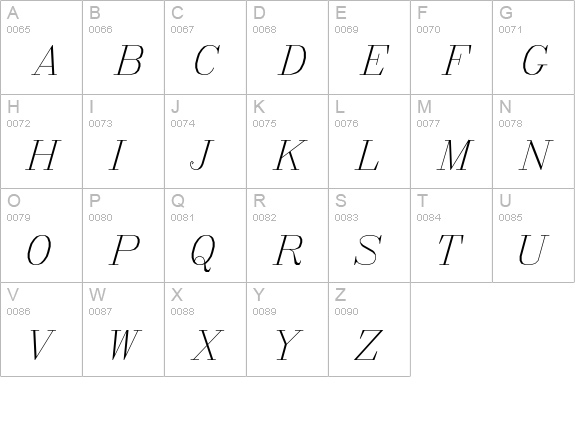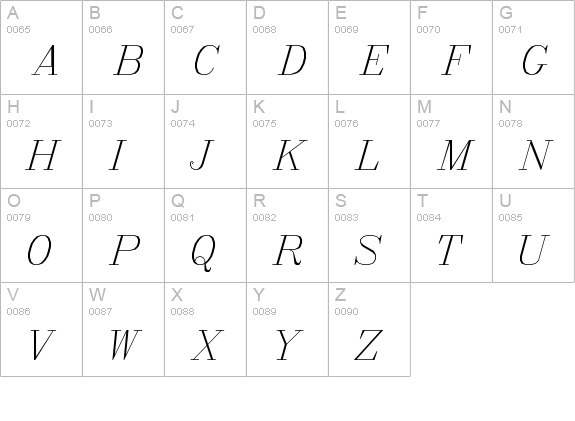
Italic is a distinctive, italic variant in the Italic typeface family \xE2\x80\x94 well suited to design and typography projects.
The Italic font is a delightful and versatile typeface that adds a touch of elegance and sophistication to any project. Its slanted and stylish letterforms exude a sense of movement and fluidity, making it perfect for adding emphasis or creating a visually striking design. With its sleek and modern look, the Italic font is a favorite among designers and typographers alike. Its distinctive slant and graceful curves lend a sense of drama and flair to any text, making it an excellent choice for headlines, titles, and logos. Whether you're designing a magazine layout, creating a captivating poster, or crafting an eye-catching website, the Italic font is sure to make a bold statement. One of the best things about the Italic font is that it is freely available to download at FontsMarket.com. This means that you can easily access and use this beautiful typeface in your projects without any cost. Whether you're a professional designer or a hobbyist, having access to high-quality fonts like the Italic font can significantly enhance your creative work. The Italic font is not only visually appealing but also highly legible, making it ideal for both print and digital applications. Its clear and crisp letterforms ensure that your message is communicated effectively, whether it's in a book, a website, or a branding project. Its versatility allows it to be used in various contexts, from formal invitations and corporate materials to casual and contemporary designs. In addition to its aesthetic appeal and versatility, the Italic font also offers a wide range of character sets and language support, making it suitable for multilingual projects. This ensures that you can effectively communicate your message to a diverse audience without any limitations. Overall, the Italic font is a must-have for any designer or creative individual looking to add a touch of style and sophistication to their projects. Its timeless elegance, versatility, and free availability make it an excellent choice for a wide range of design applications. So why wait? Head over to FontsMarket.com and download the Italic font today to elevate your designs to new heights.